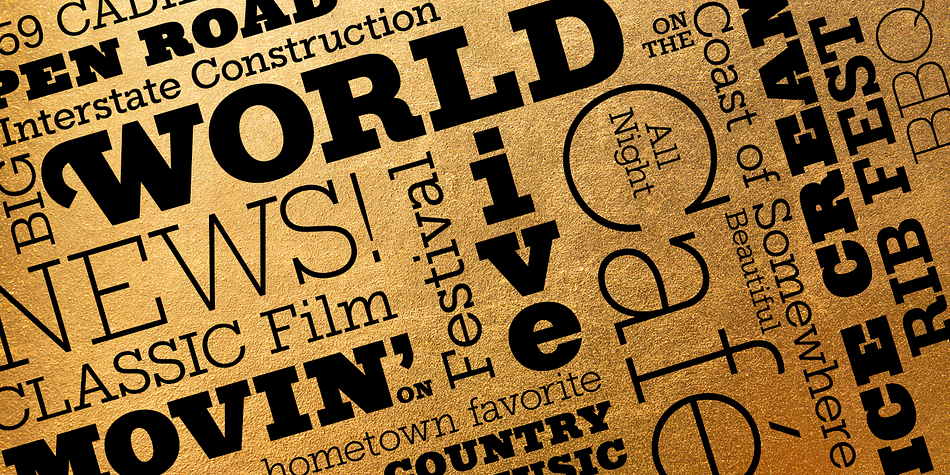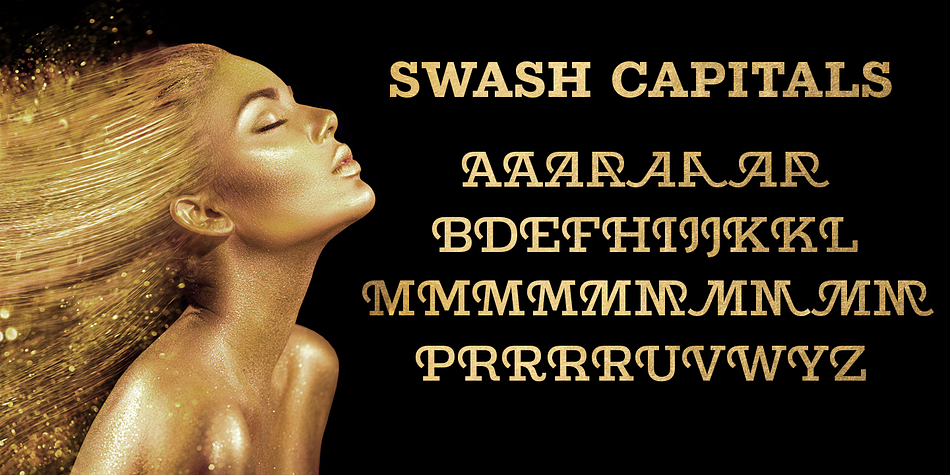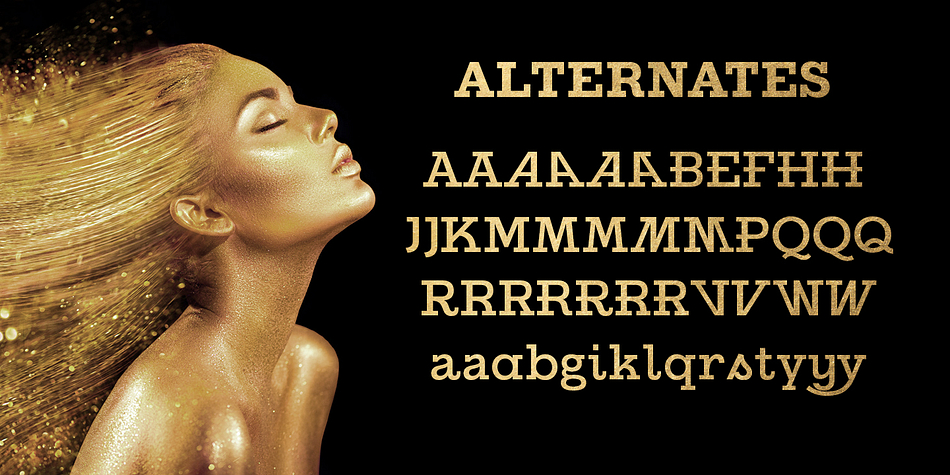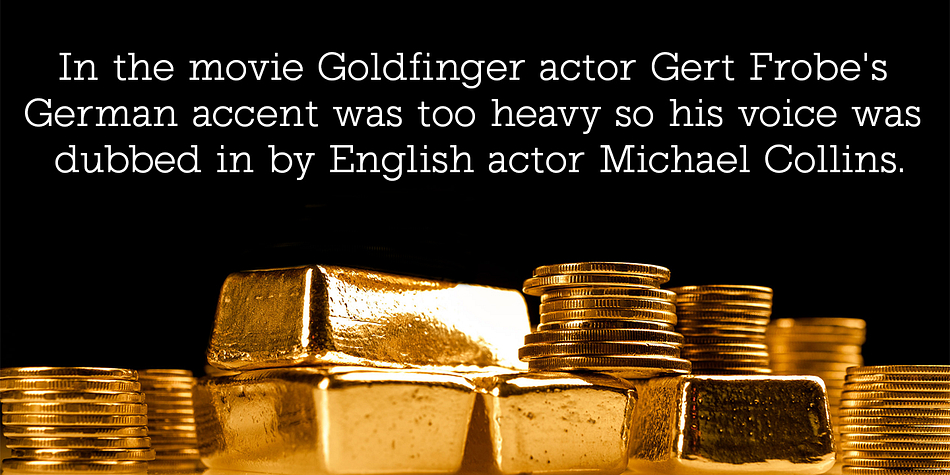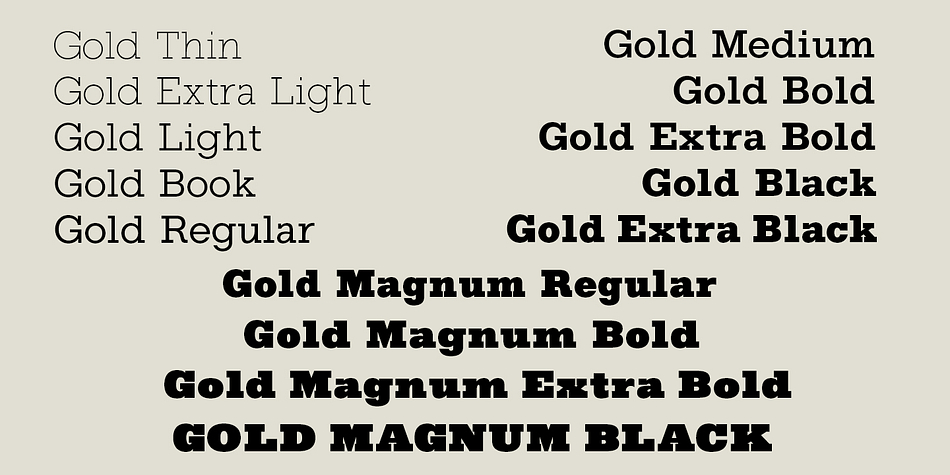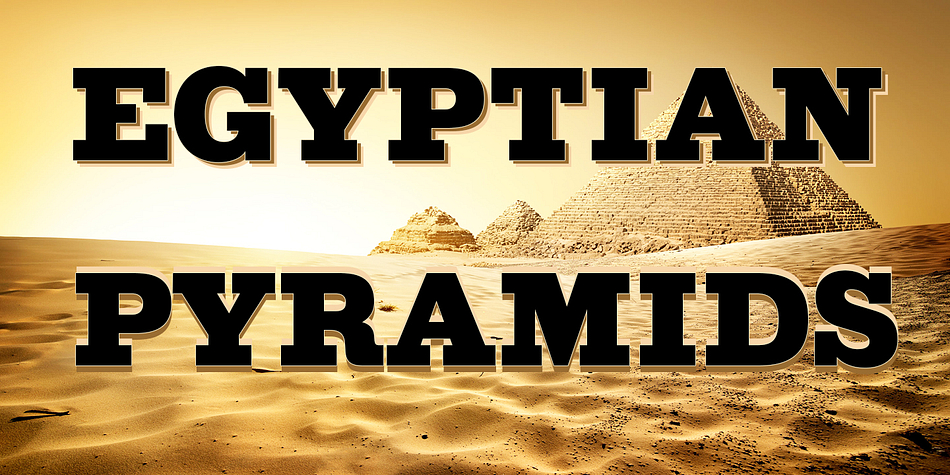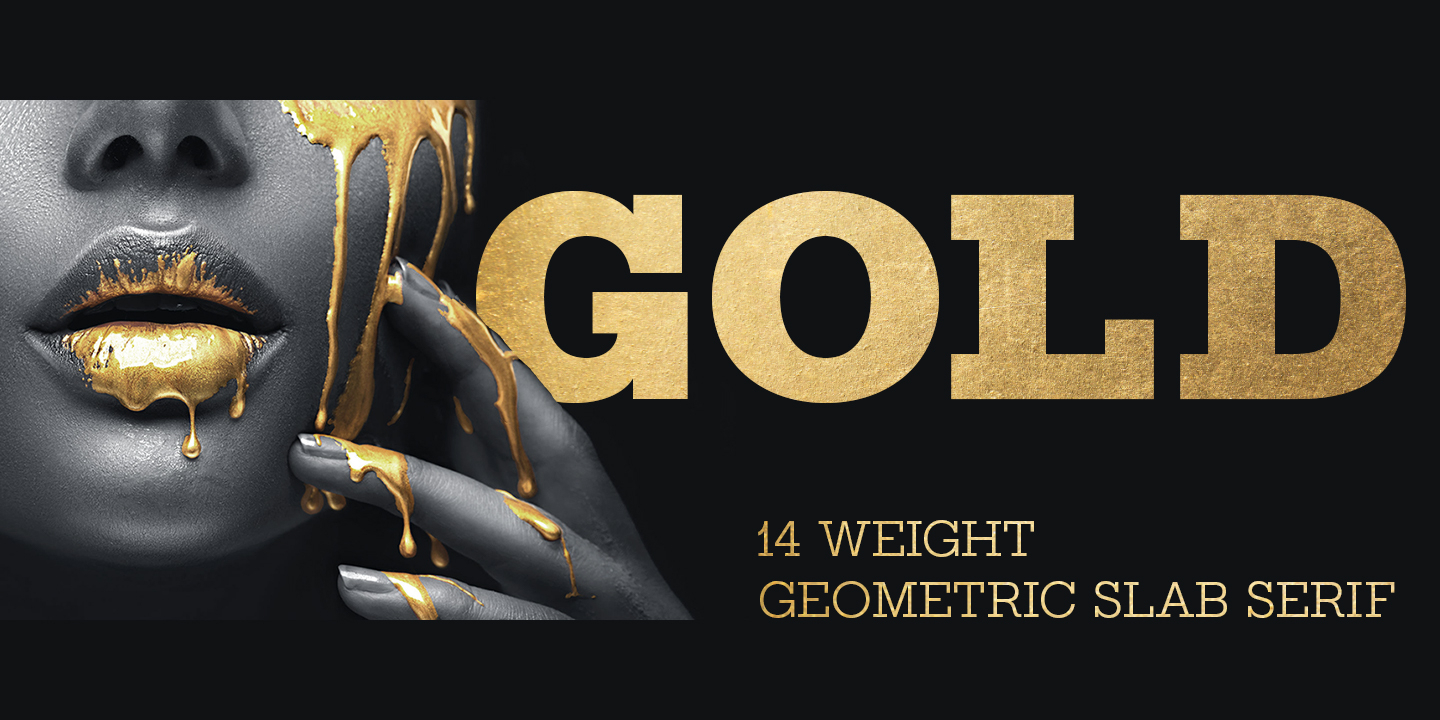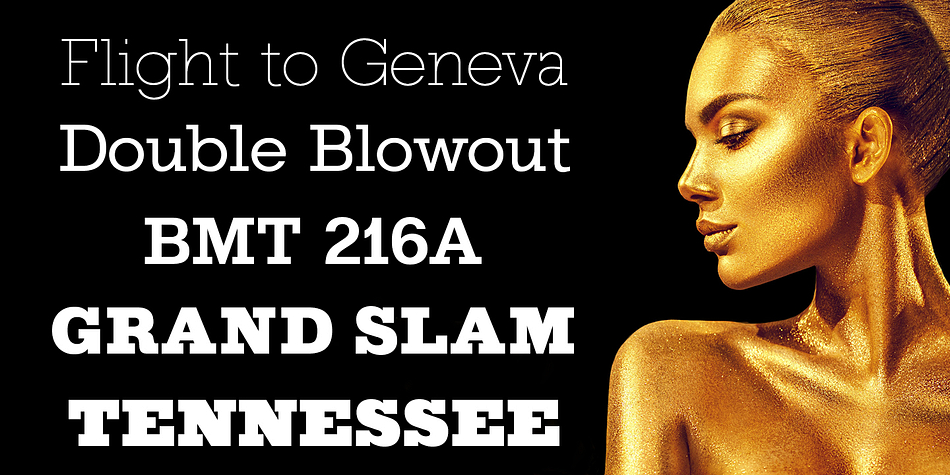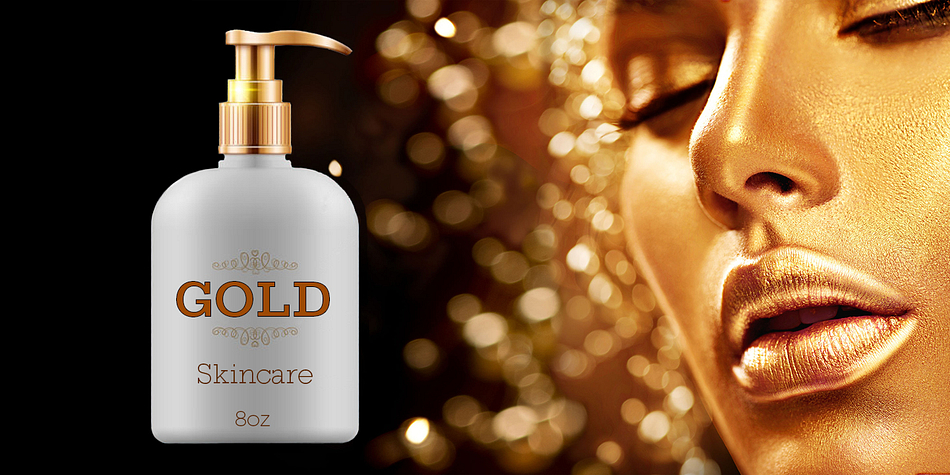
Gold is a slab serif, western and display slab font family. This typeface has fourteen styles and was published by FontMesa.
Gold is a new slab serif font family packed with many alternates giving you more options to choose from including small caps, stacked fractions, ligatures, stylistic alternates and swash letters.
With 14 weights in the Gold family it’s the perfect type face to compliment your design project, from extra light to the robust magnum you’re sure to select the right blend of thick and thin styles creating a dimensional contrast that gets attention.
The Gold font family supports accented characters for western, central and eastern European countries.